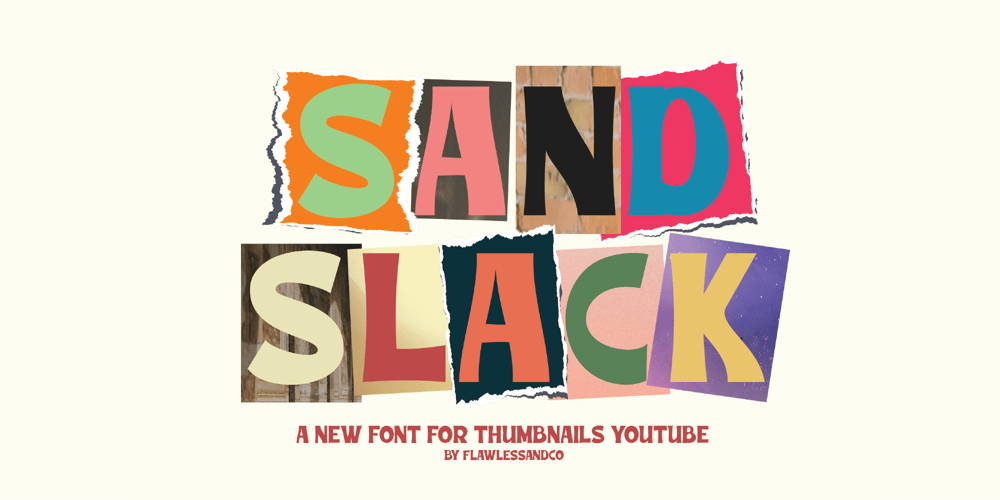
Sand Slack Font Family was designed by Achmad Yani and published by Flawlessandco. Sand Slack contains 1 styles and family package options. Sand Slack – Thumbnails Font, Tittle Font, Subtitle Font, Sans Serif Font, Modern Font, Branding Font, Logo Font, Canva Font, Cricut Font, Cursive Font, Procreate FontIntroducing “Sand Slack” is a font for thumbnail projects. Elevate your thumbnails to the next level with “Sand Slack,” a sleek and modern sans serif font tailored specifically for captivating visual content. With its clean lines and contemporary aesthetic, Sand Slack ensures that your thumbnails stand out in a crowded digital landscape, grabbing the attention of viewers at first glance.*on the cover preview is a result of the designer’s creativity!Keywords: Thumbnails FontThere’s some connected letters and some alternates that suitable for any graphic designs such as branding materials, t-shirt, print, business cards, logo, poster, t-shirt, photography, quotes .etcThis font support for some multilingual. Also contains uppercase A-Z and lowercase a-z, alternate character, numbers 0-9, and some punctuation.If you need help, just write me! Thanks so much for checking out my shop!